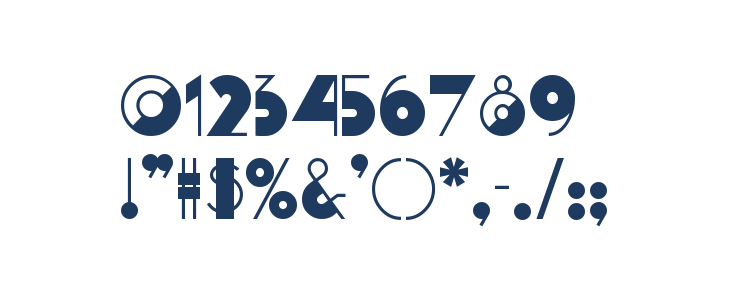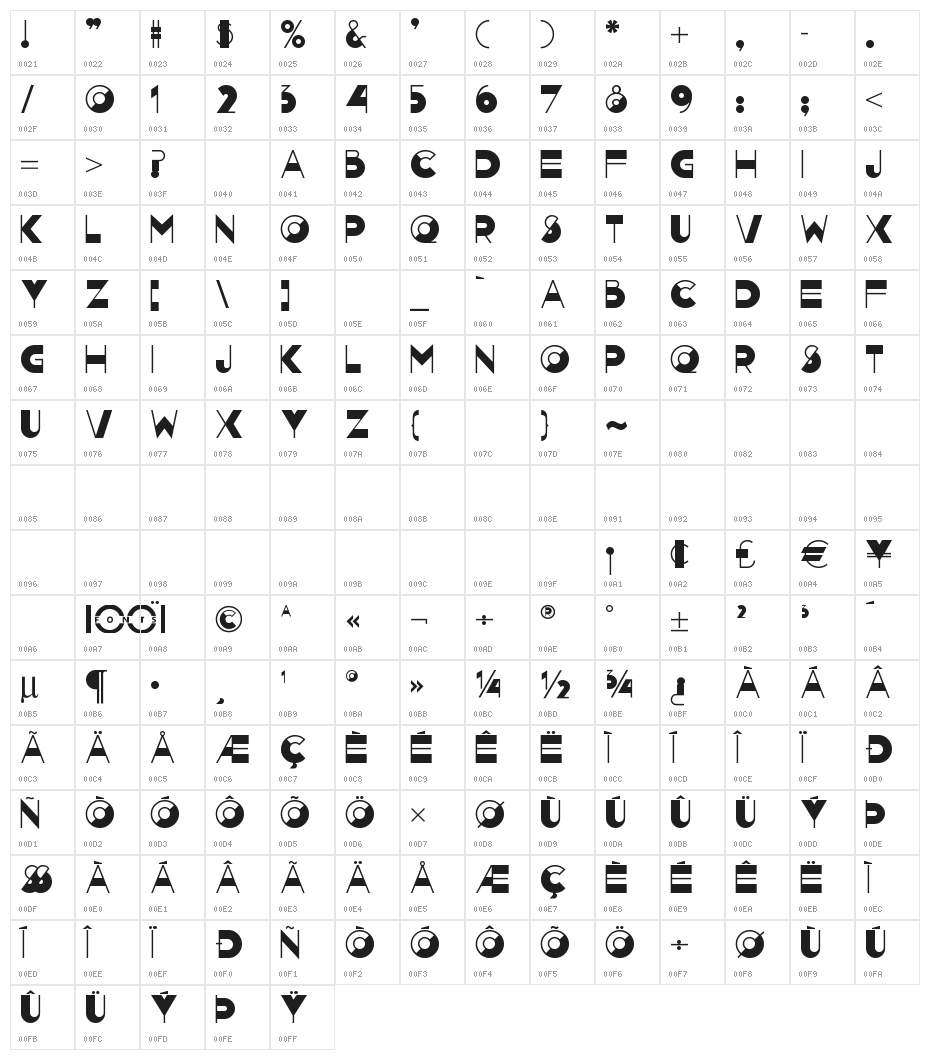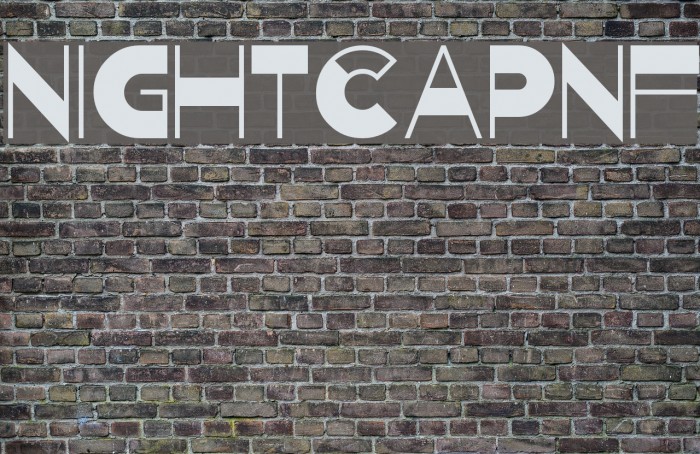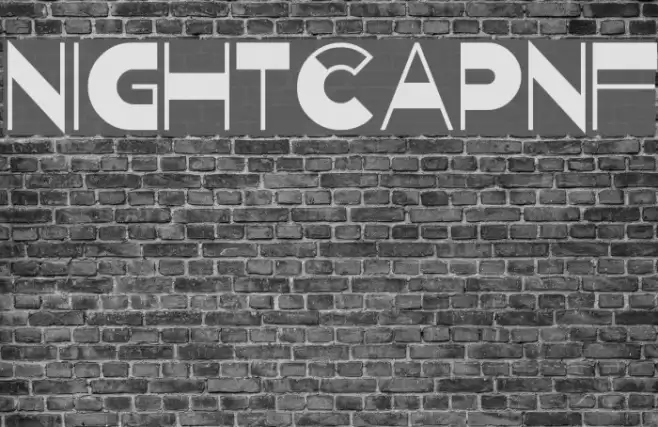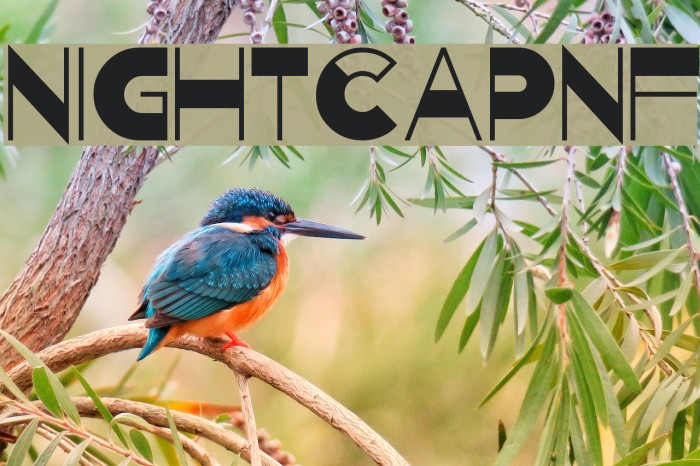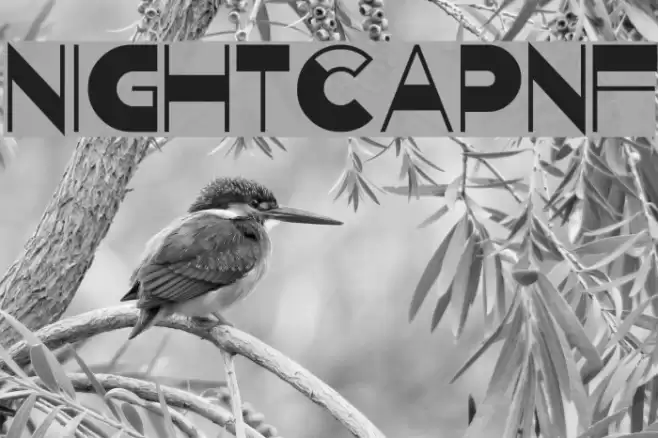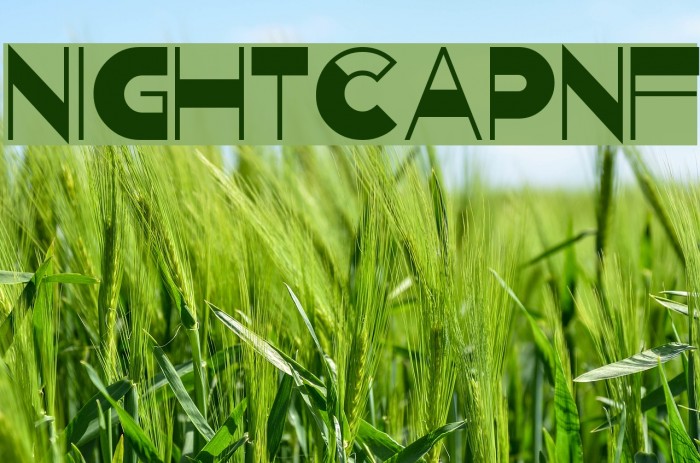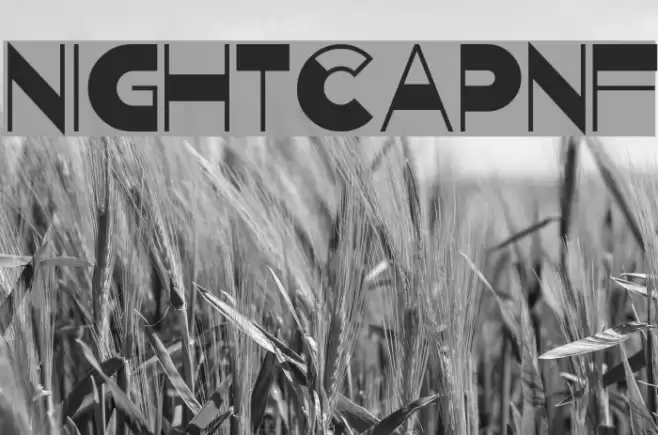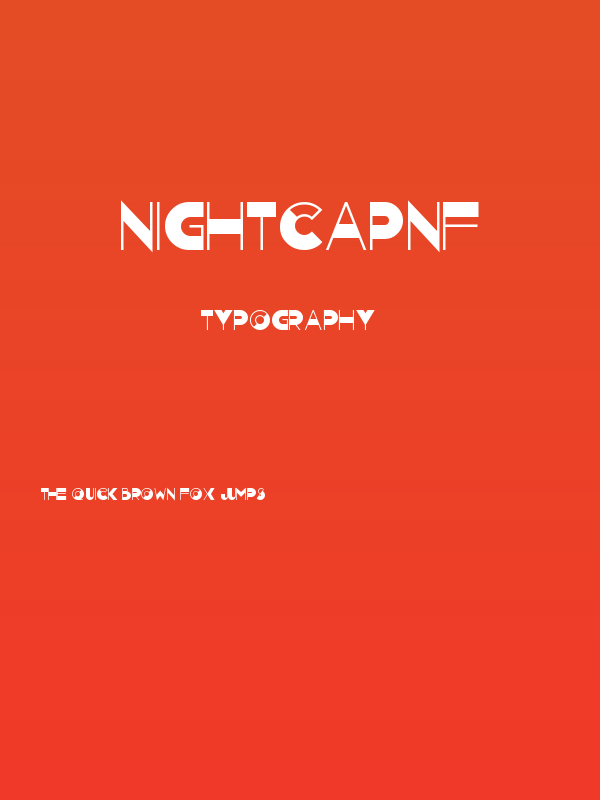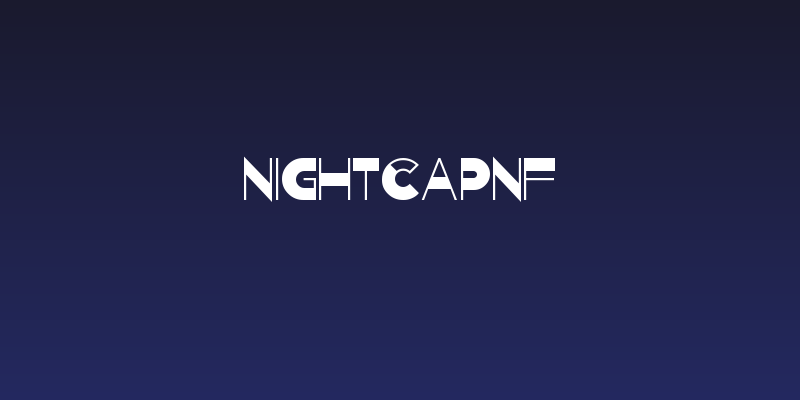
NightcapNF Font
NightcapNF Description
This font features a bold and geometric design, characterized by its unique and artistic letterforms. The uppercase and lowercase letters share a consistent style, with sharp angles and circular elements that create a modern and futuristic look. The numbers and special characters maintain this aesthetic, offering a cohesive appearance across all glyphs. The font's distinctiveness lies in its combination of solid shapes and negative space, making it visually striking and ideal for creative projects.
| Proposed Projects | Ideal for branding, posters, album covers, and any project requiring a modern, artistic touch. |